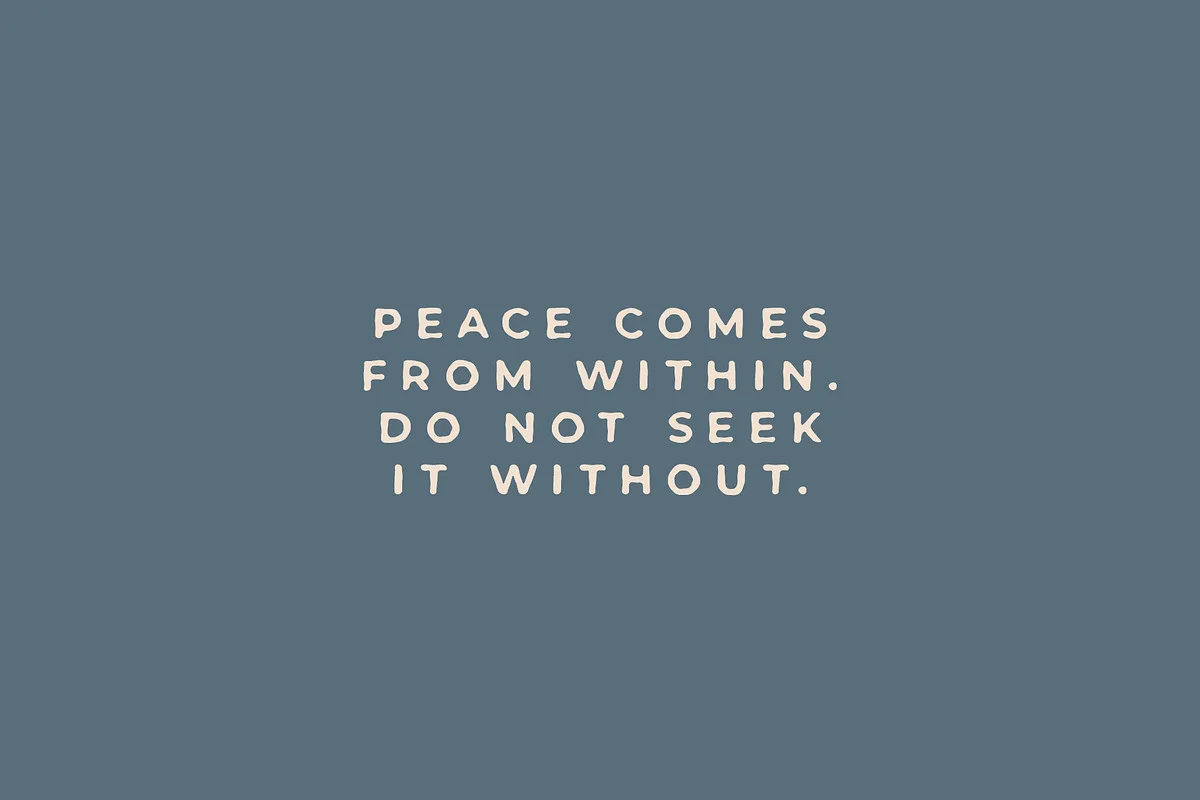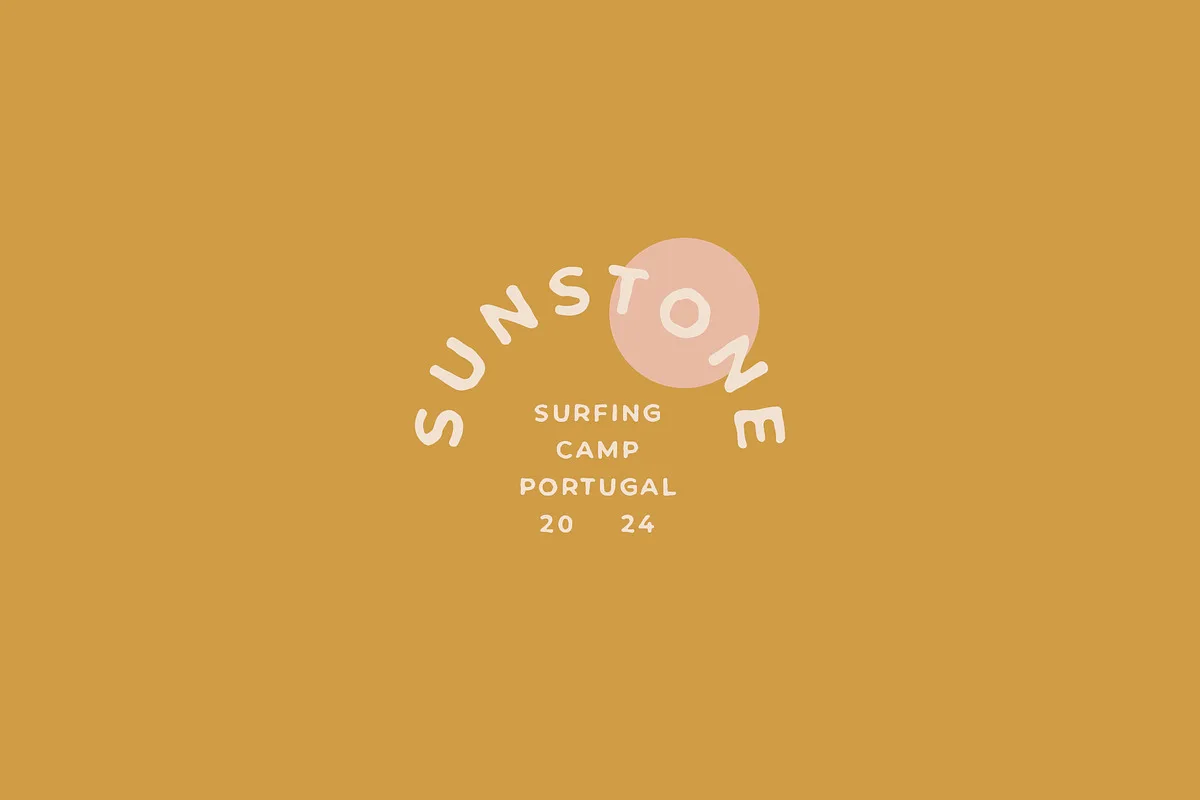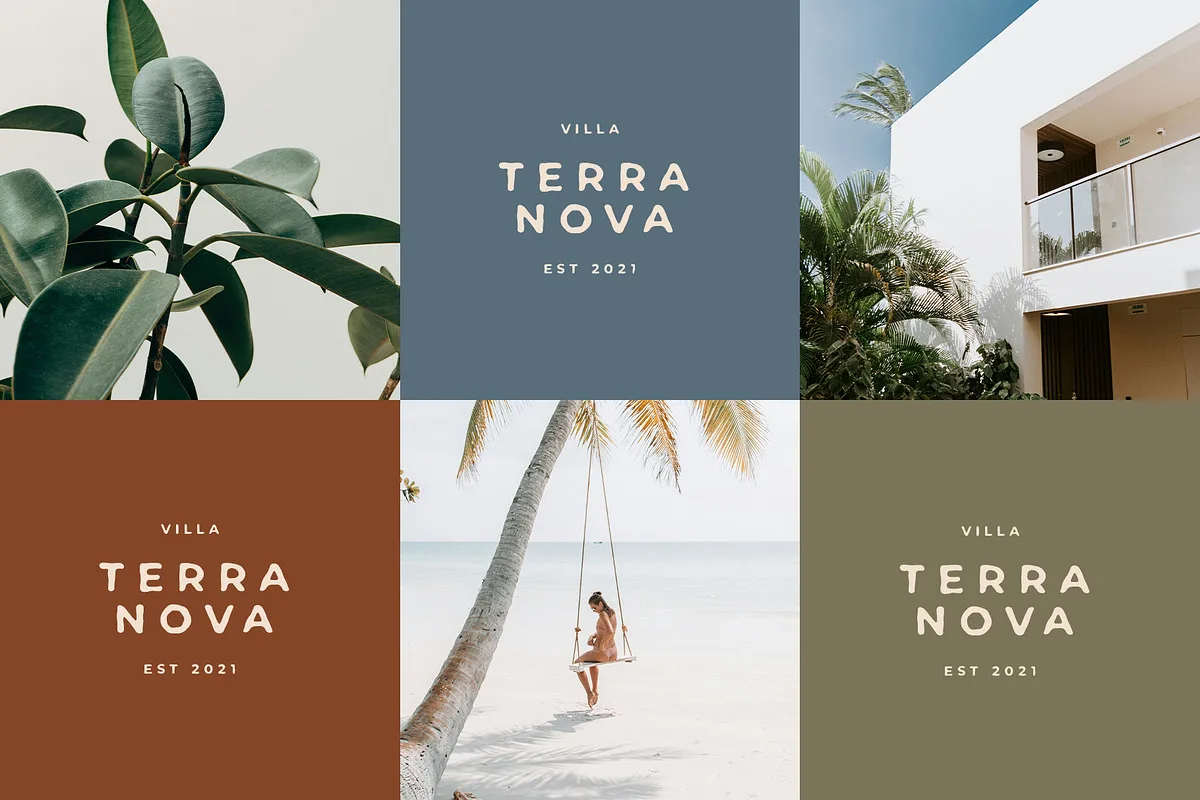
Desierto is an elegant, handwritten sans serif. This is a perfect for any project
- Language support: All European languages
- Multilingual Characters